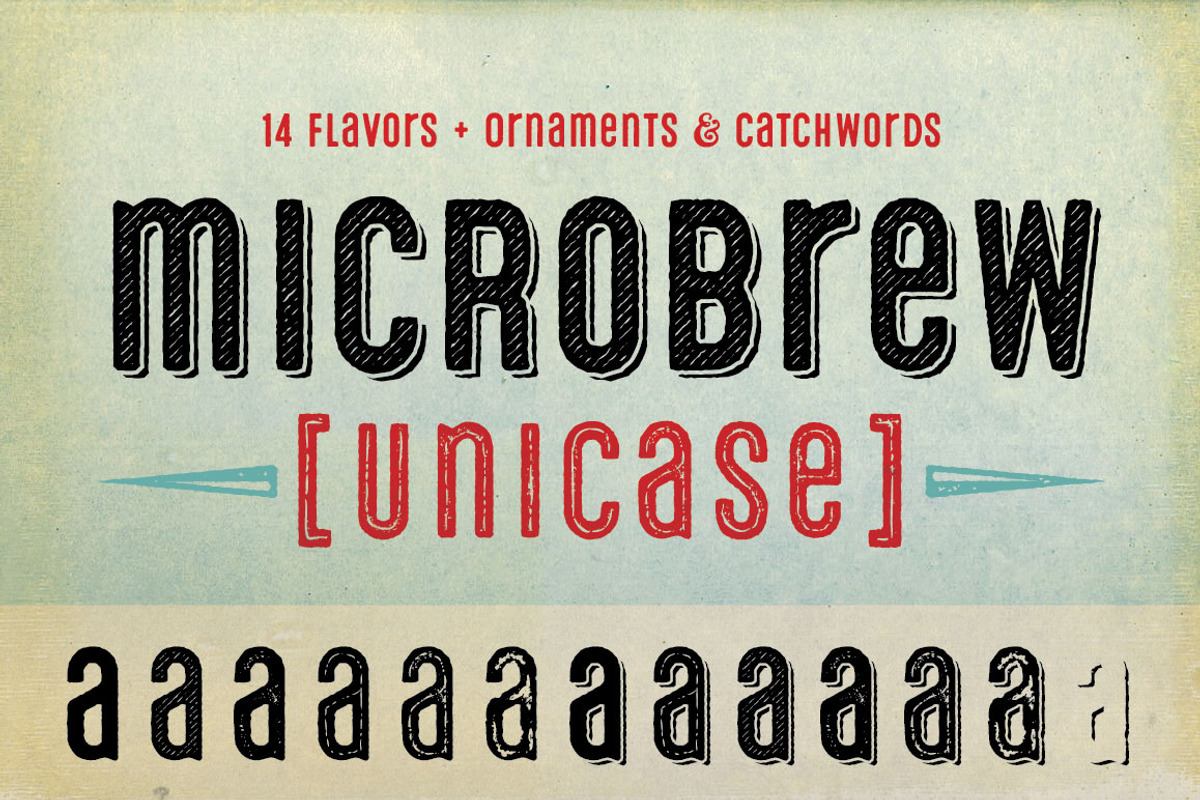
Microbrew Unicase Font Family Free Download is a bold, vintage-inspired typeface with a unique unicase style that blends uppercase and lowercase characteristics into a cohesive, standout design. Perfect for craft beer labels, retro posters, signage, and branding projects, this font family delivers a rustic charm with a modern twist. Its textured finish and handcrafted feel add depth and authenticity to any design.
With multiple styles included, the Microbrew Unicase Font Family gives you creative flexibility and a strong typographic presence. Whether you're working on a logo for a local brewery or creating marketing materials for an artisanal product, this font family helps you tell your story with character and style.